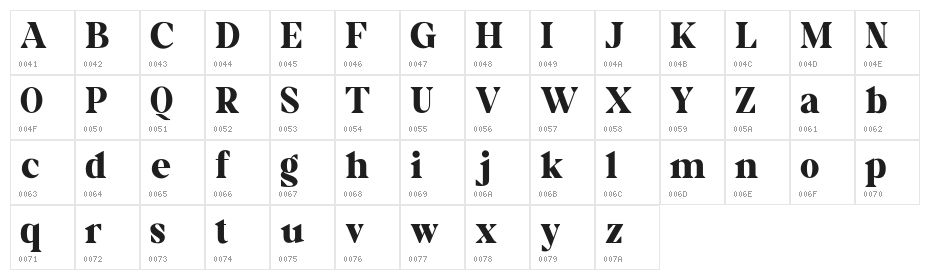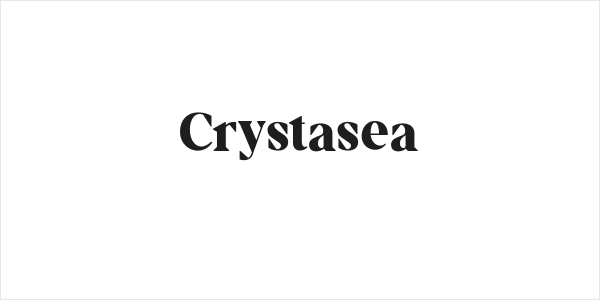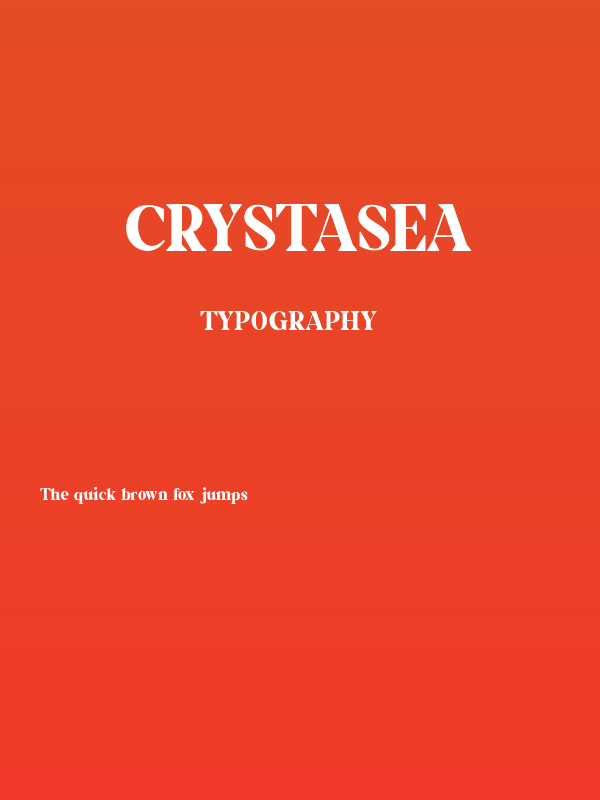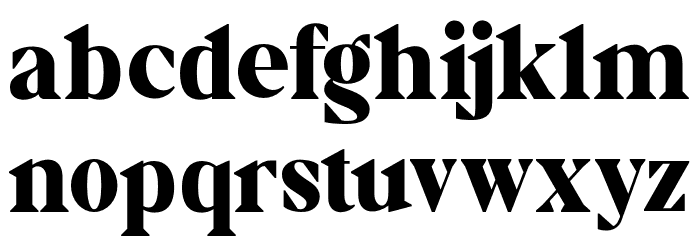
Crystasea Font
Crystasea Description
This font features a bold and authoritative presence with its strong, thick strokes and pronounced serifs. The uppercase letters exhibit a classic elegance, while the lowercase characters maintain a consistent weight, providing a harmonious balance. The font's design is reminiscent of traditional serif styles, yet it carries a modern twist with its clean lines and sharp edges. The overall appearance is both sophisticated and impactful, making it suitable for a variety of applications where a commanding and refined look is desired.